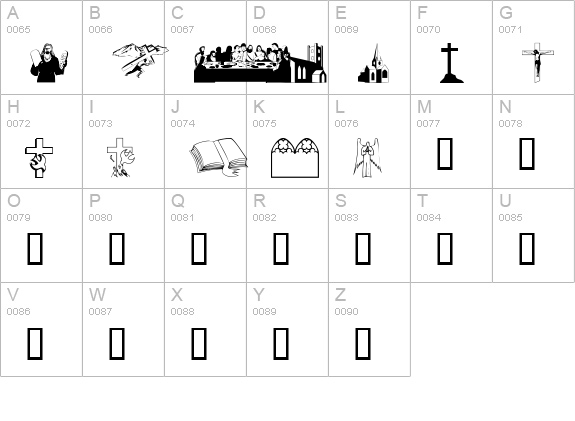
Religious 2 Font Details
Religious 2 font is a magnificent typeface that exudes a sense of spirituality and reverence. With its intricate details and elegant curves, this font captures the essence of religious texts and sacred scriptures. Each letter is meticulously crafted, allowing for a seamless flow and harmonious balance. This font is not only visually captivating but also carries a spiritual significance that resonates with readers. It is perfect for creating religious literature, church bulletins, or any project that requires a touch of divine inspiration. Whether you are designing a sermon handout, a prayer book, or a religious invitation, Religious 2 font will add a sense of sacredness and reverence to your work. What makes Religious 2 font even more remarkable is that it is freely available to download at FontsMarket.com. This means that you can access this beautiful font without any cost, making it an ideal choice for budget-conscious designers or anyone who appreciates the value of a free resource. With just a few clicks, you can enhance your projects with the timeless beauty of Religious 2 font. Download Religious 2 font today from FontsMarket.com and let it elevate your designs to new heights. Embrace the spiritual essence it embodies and create impactful visuals that resonate with your audience. Whether you are a religious organization, a graphic designer, or an individual seeking to add a touch of divinity to your creations, Religious 2 font is the perfect choice. Don't miss out on this opportunity to access a high-quality font for free.